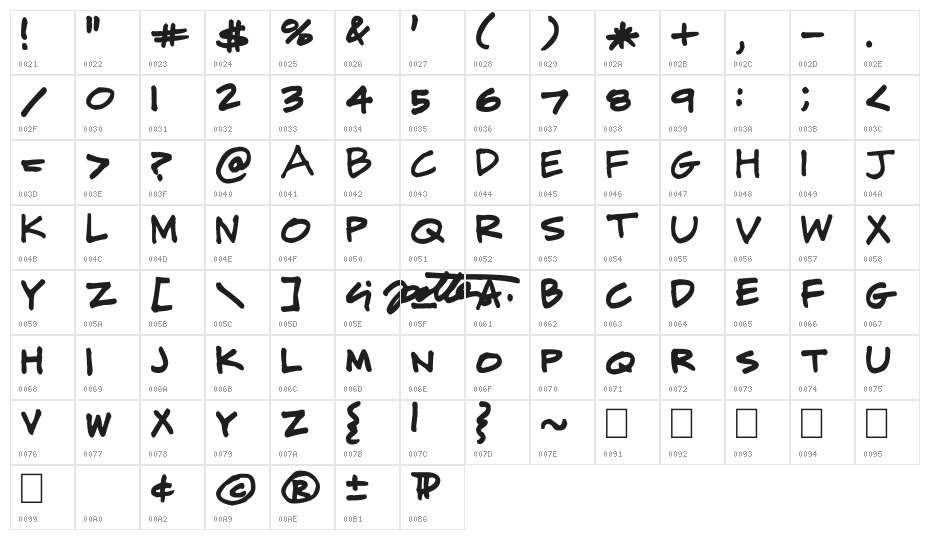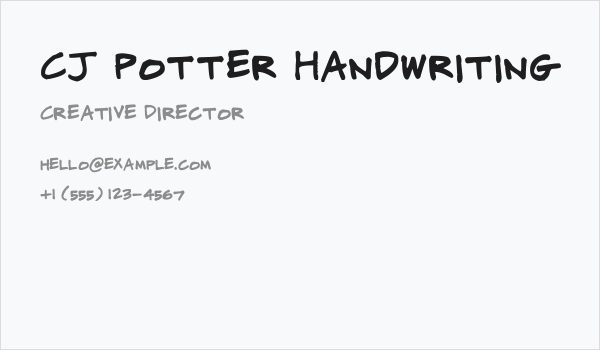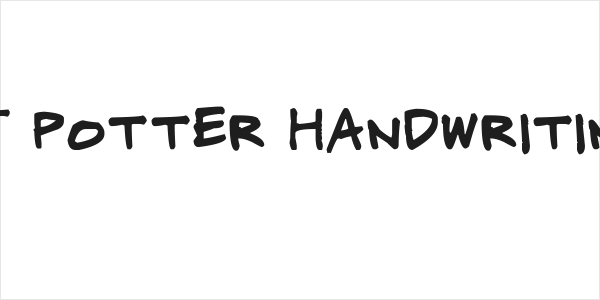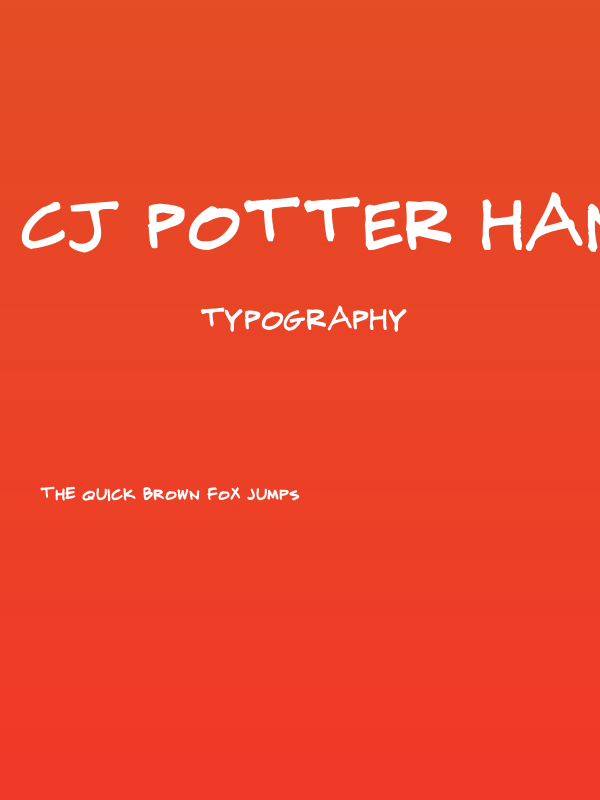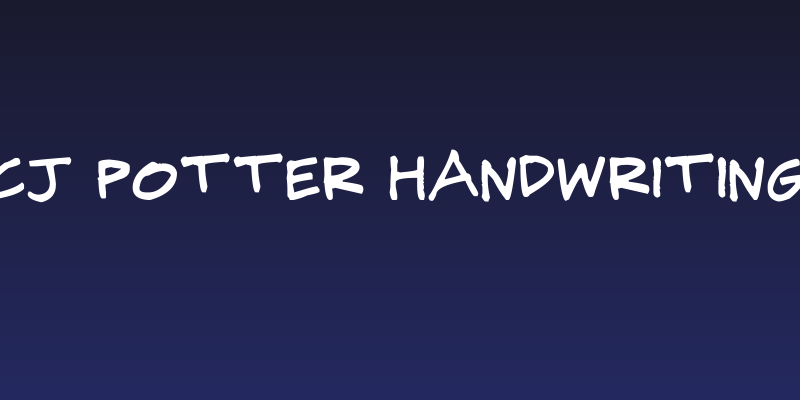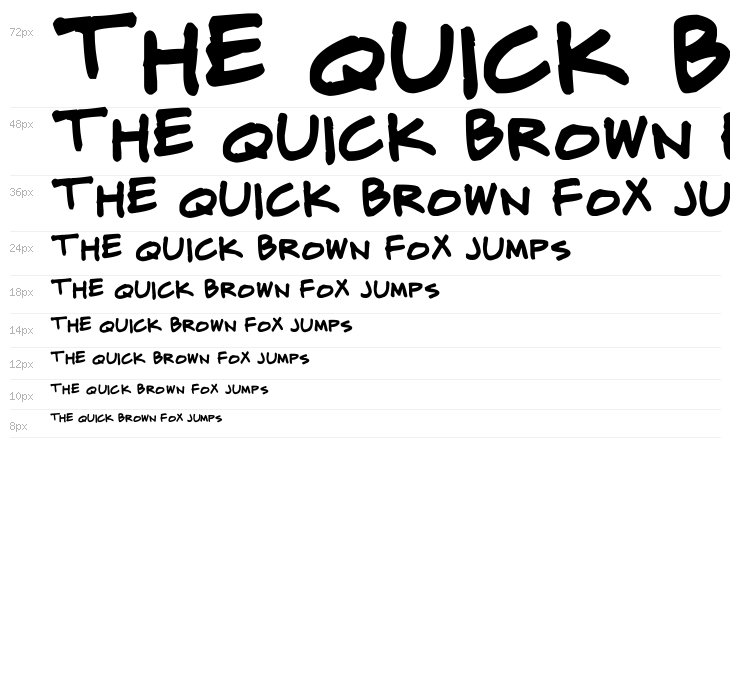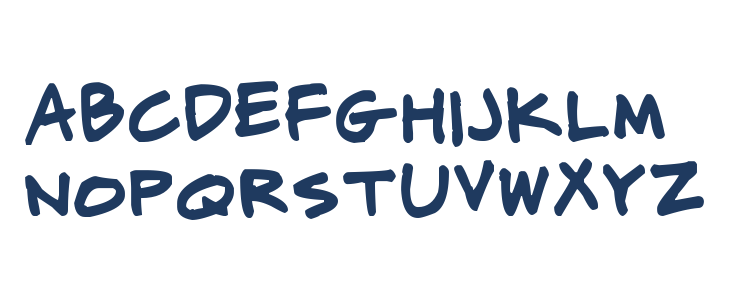
CJ Potter Handwriting Font
CJ Potter Handwriting Description
This font exudes a playful and casual handwritten style, reminiscent of a whimsical and magical theme. The letters are bold and slightly irregular, giving them a lively and dynamic appearance. The uppercase and lowercase letters maintain a consistent flow, while the numerals and special characters complement the overall aesthetic. The strokes are thick, adding to the boldness and visibility of the text. This font is perfect for projects that require a touch of personality and creativity, such as children's books, fantasy-themed designs, or playful branding.
| Proposed Projects | Ideal for children's books, fantasy-themed designs, playful branding, and creative projects. |